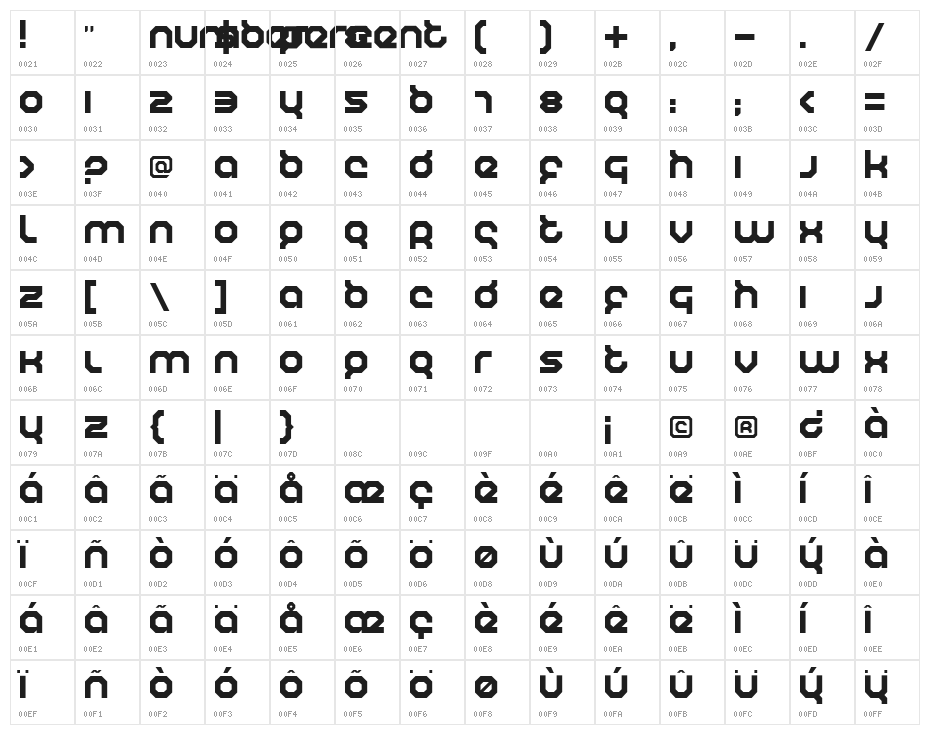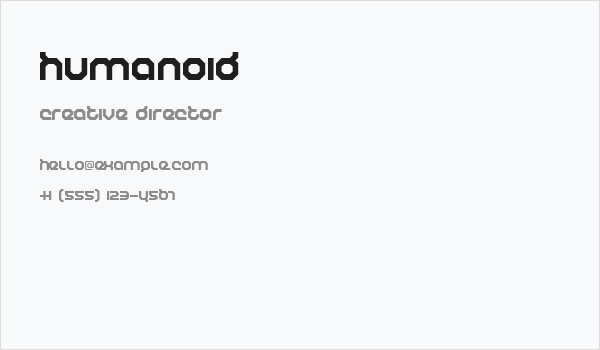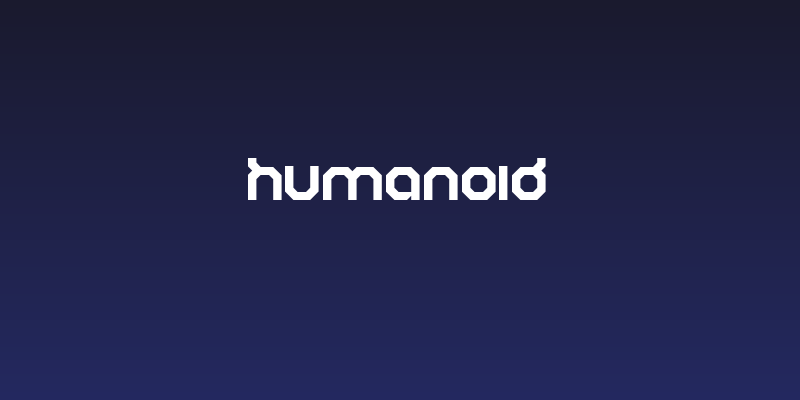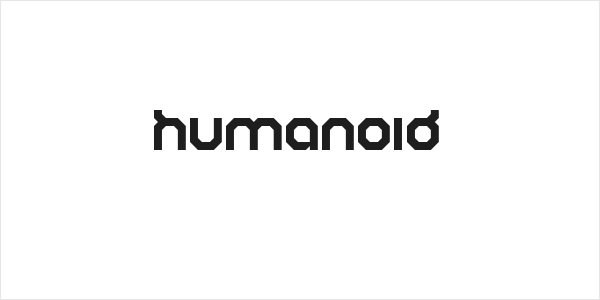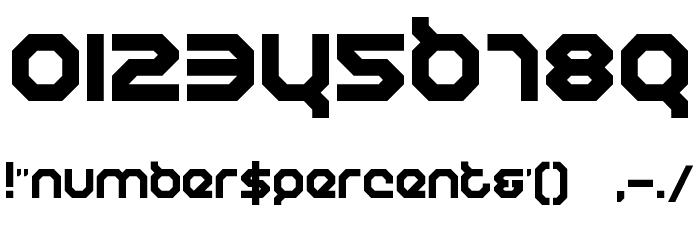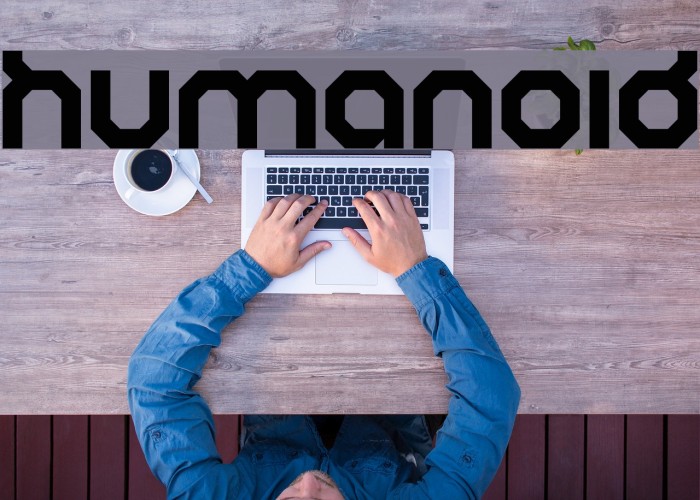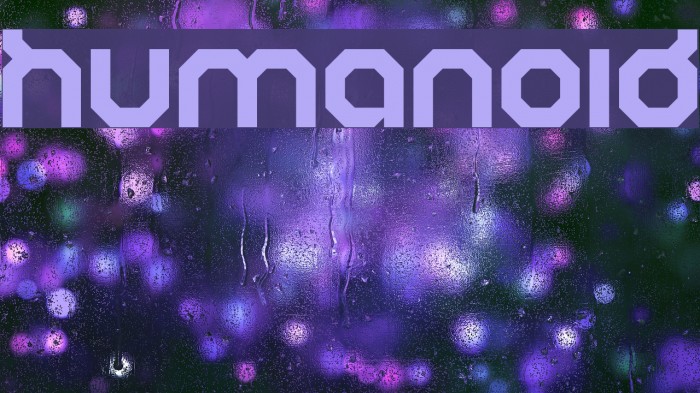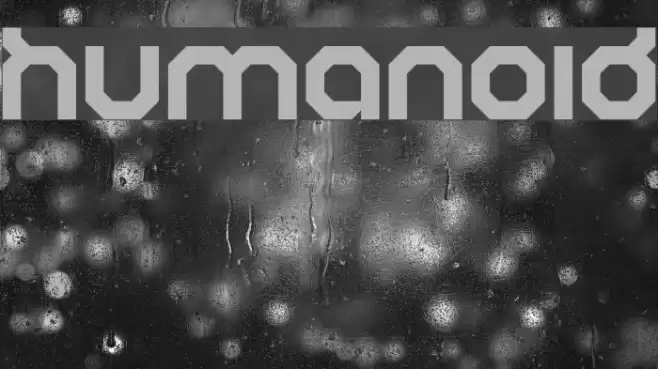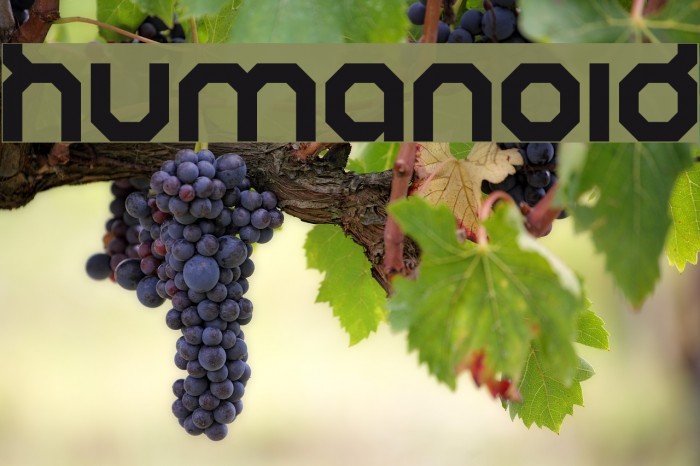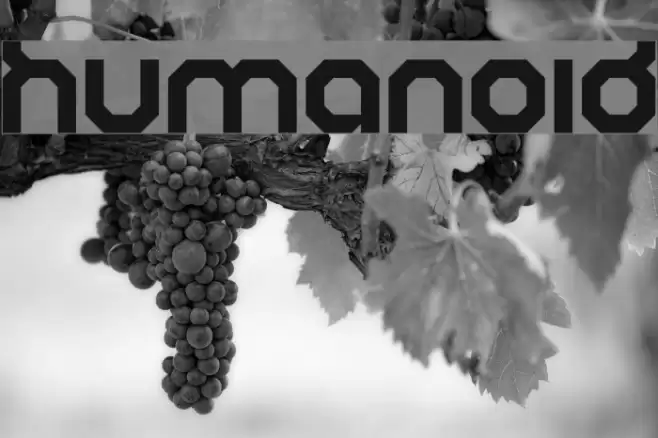
Humanoid Font
Humanoid Description
This font features a bold, futuristic design with geometric shapes and sharp angles. The characters are constructed with a consistent thickness, giving it a uniform and cohesive appearance. The style is reminiscent of digital or sci-fi themes, making it ideal for projects that require a modern and technological feel. The uppercase and lowercase letters maintain a similar structure, enhancing readability while preserving the unique aesthetic. Numbers and special characters are designed to match the overall theme, ensuring a seamless integration across different text elements.
| Proposed Projects | Ideal for technology branding, video game titles, sci-fi book covers, and digital interfaces. |